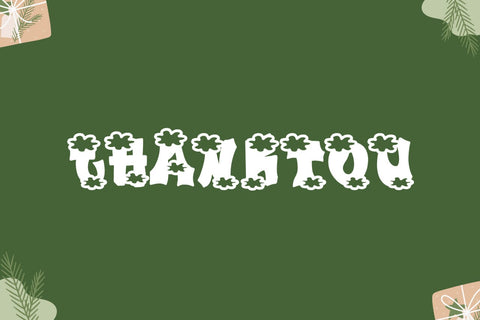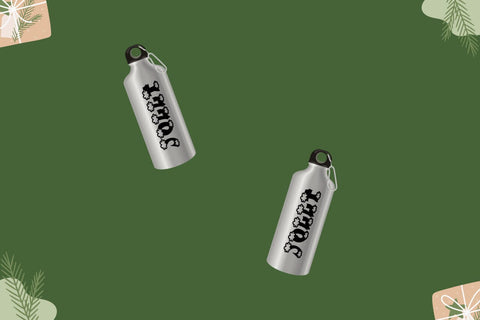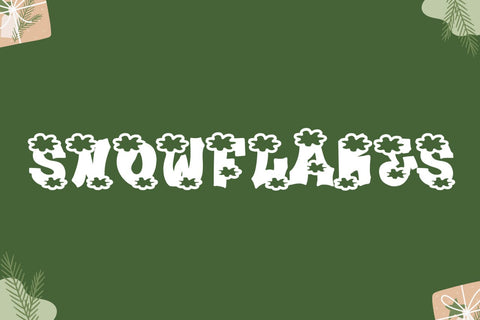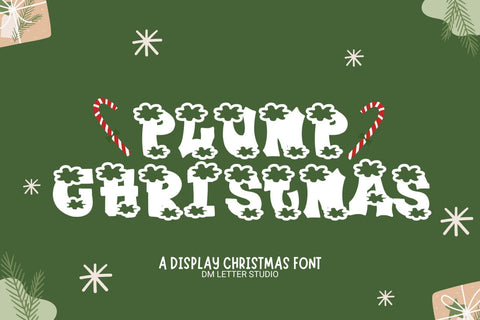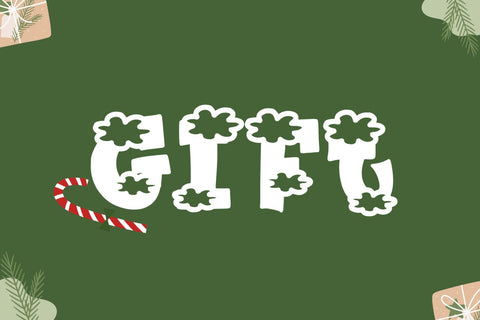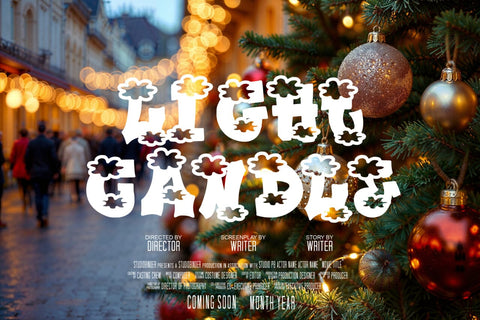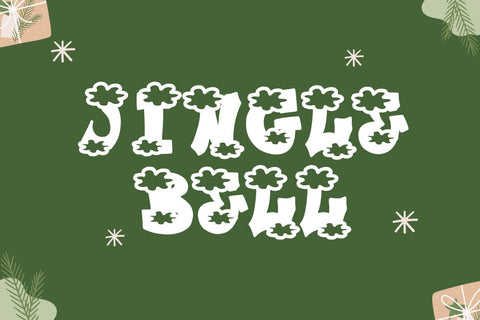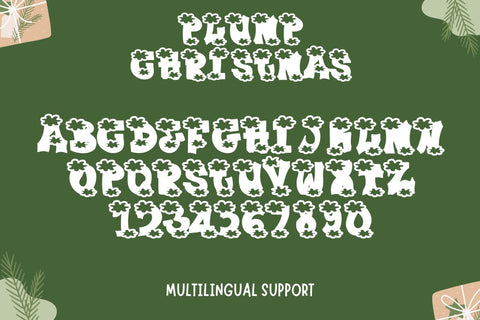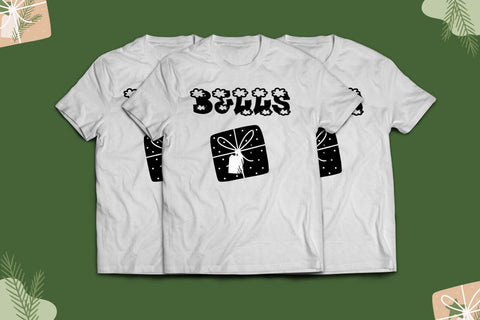
Plump Christmas Font
Meet Plump Christmas Font
Plump Christmas Font brings cozy, cheerful energy to holiday designs. Rounded letters feel friendly and bold, while wide counters keep every word clear on cards, shirts, tags, mugs, and banners. Moreover, you can use it for Christmas quotes, advent calendars, party invites, classroom boards, gift labels, and seasonal social posts. Because spacing is even and curves stay smooth, your artwork reads well at thumbnail size and still looks striking on large prints.
Why creators love this Christmas font
First, it looks warm and joyful. Next, it cuts cleanly for Cricut, Silhouette, and laser projects. Then it pairs easily with a neat sans or a simple handwritten script, so you can build headlines, captions, and price tags fast. As a result, one friendly typeface can power your entire holiday collection—from printable decor to cozy pajamas and matching family tees.
Ready for cards, shirts, and merch
Plump Christmas in action
Create festive phrases like “Merry & Bright,” “Cozy Season,” “Santa Approved,” and “Hot Cocoa Club.” Stack short lines for stickers and gift tags. For apparel, try two-color offsets or a soft drop shadow for instant bubble-letter depth. Because the forms are bold and tidy, layered effects are easy to build and batch.
Design tips for extra cheer
Keep headlines short and chunky. Pair with a simple sans for dates and prices. Then, try color stories like holly red & cream, pine & candy pink, or gingerbread & snow. Finally, export at 300 DPI for print and 2x size for web to keep edges smooth.